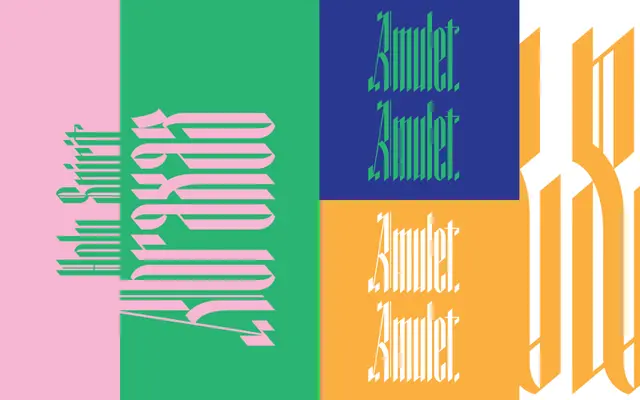
Optimum Compress
The Designers Foundry · Simon (Studio io)
A single-weight geometric blackletter drawing on 13th and 14th-century Textura traditions, built from a reduced set of constructed forms.
Designed by Simon of Melbourne-based Studio io, Optimum Compress reduces Textura blackletter to a minimal vocabulary of geometric shapes, giving it a sharp, contemporary edge without entirely abandoning its calligraphic roots. It is available in a single Regular weight with a glyph count of 325, covering an extensive range of Latin-based languages including most European and African scripts. Best suited to display and editorial use where a structured, futuristic take on blackletter is called for.
The foundry describes it as a futuristic blackletter built from a limited set of geometric base shapes, while retaining references to hand-drawn Textura type of the 13th and 14th century, placing it firmly in a geometric interpretation of the blackletter tradition.